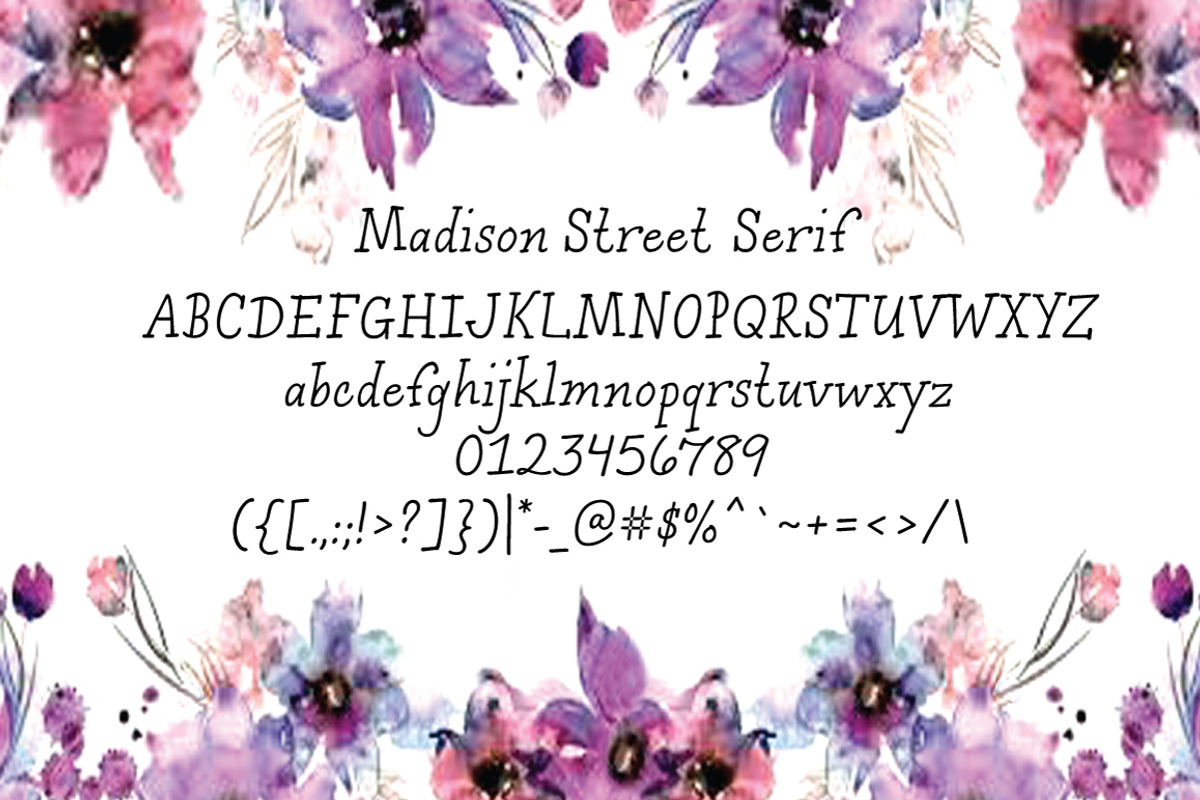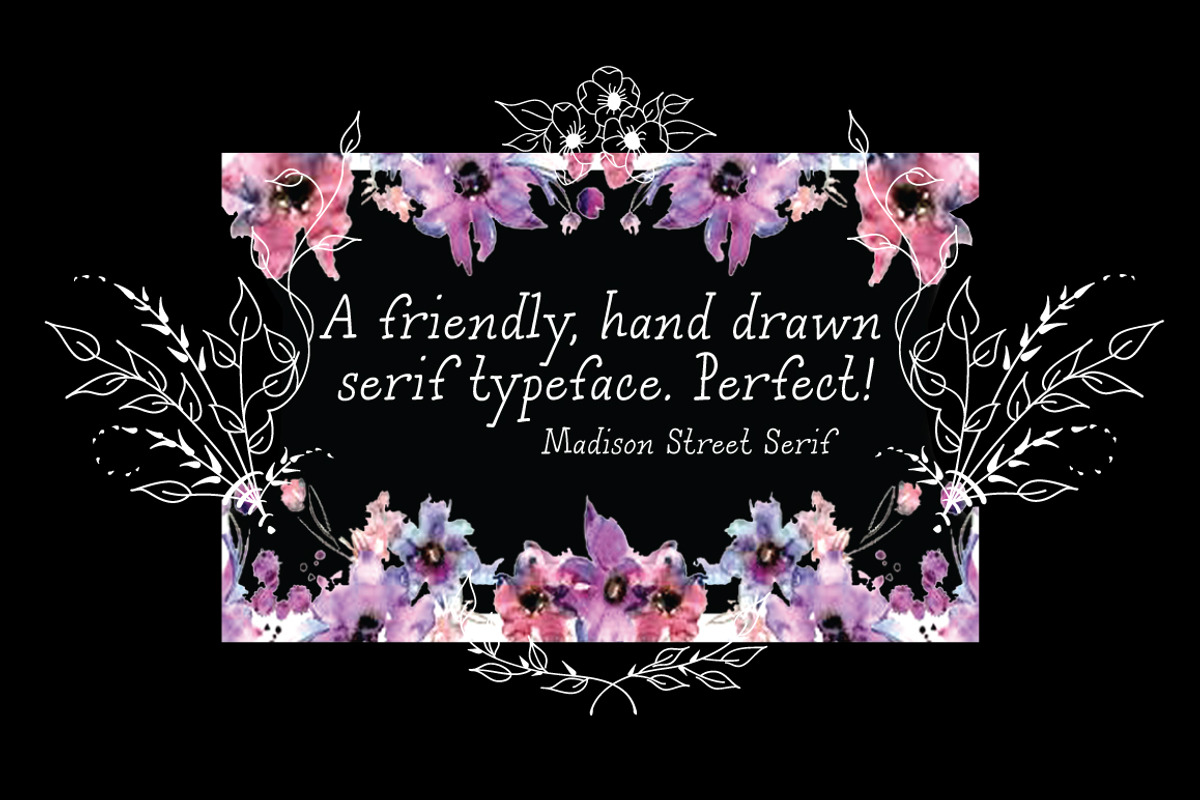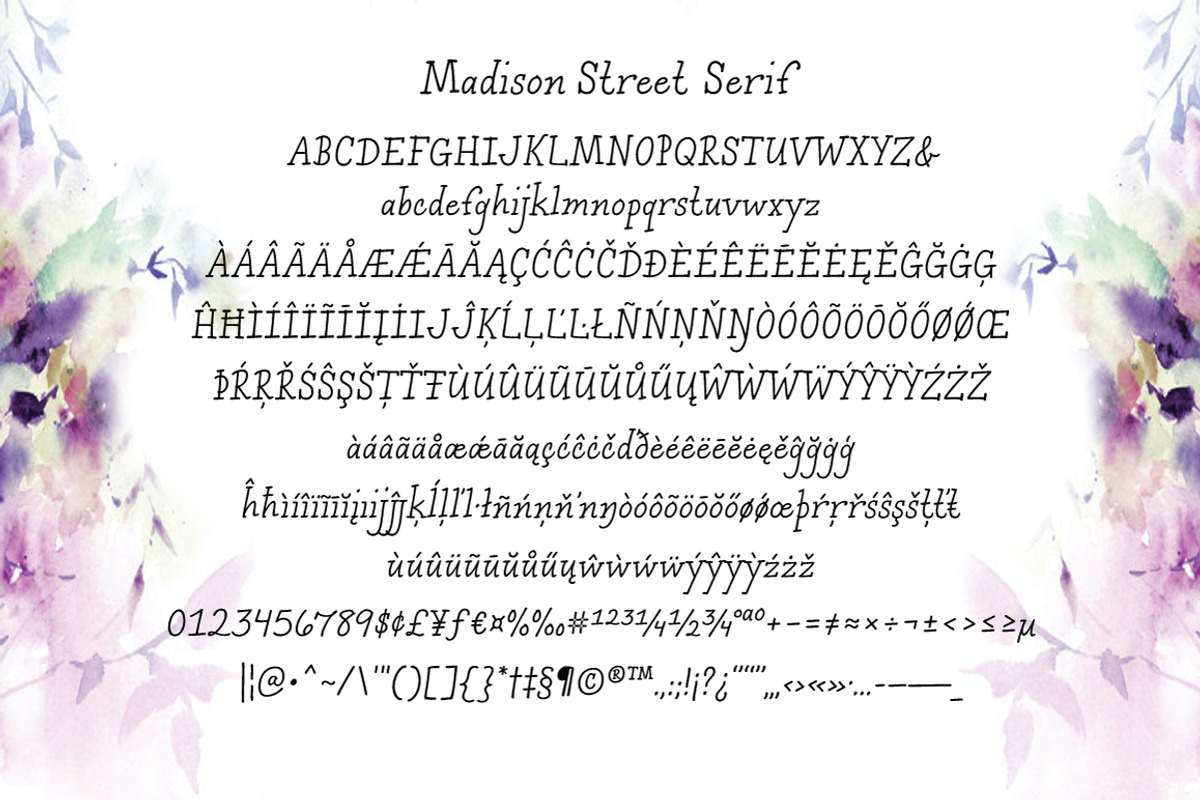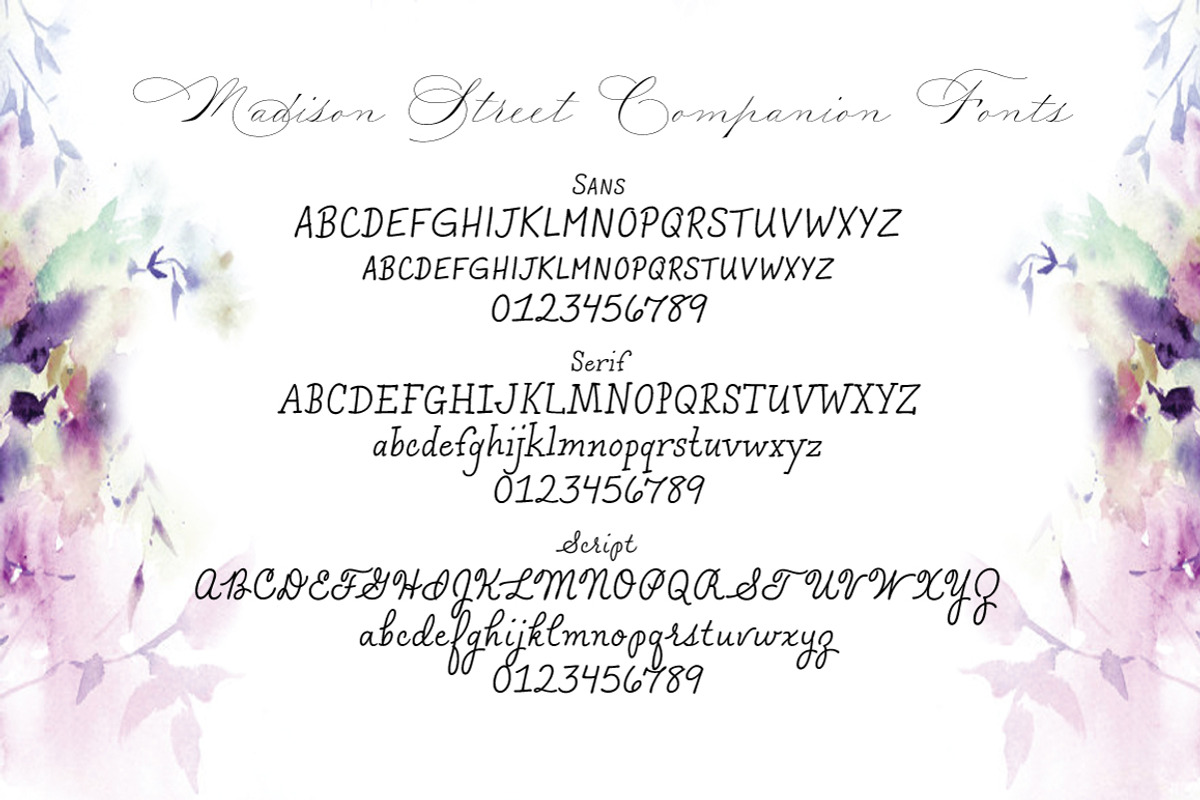
Madison Street Serif
Madison Street Serif is one of three companion text fonts for Madison Street Family fonts. It is another take on Elaina DeBoard's printing style and pairs nicely with the Spencerian typefaces. It is a very friendly, hand drawn, serif typeface. Designed to complement the classic pen calligraphy, Madison Street Serif can stand alone just as well. Try it for text and display!